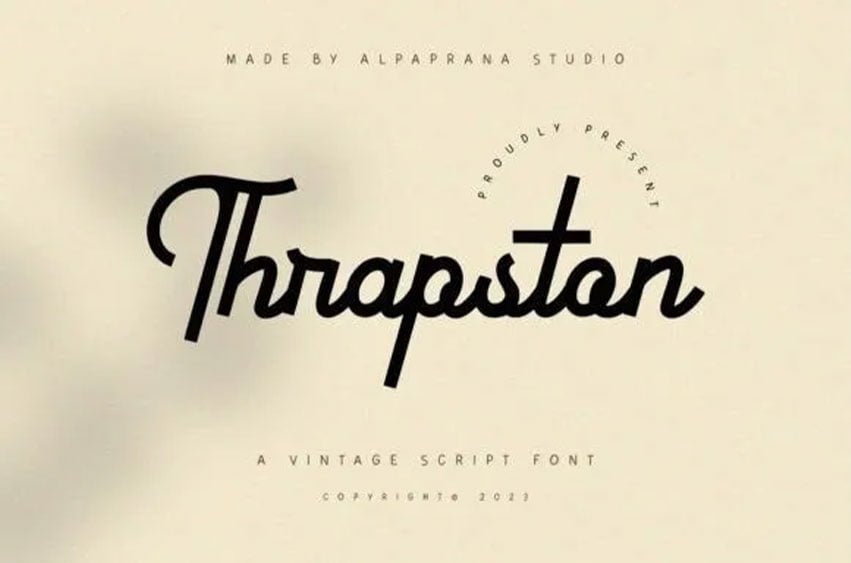
Thrapston Font is an enchanting handwritten font. This versatile script font has a wide spectrum of applications ranging from greeting cards to headlines and is guaranteed to add a romantic feel to your next project.